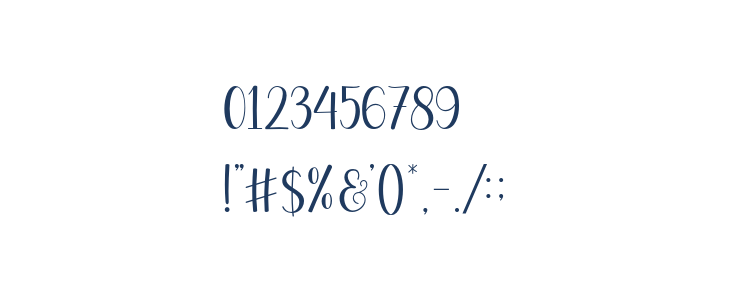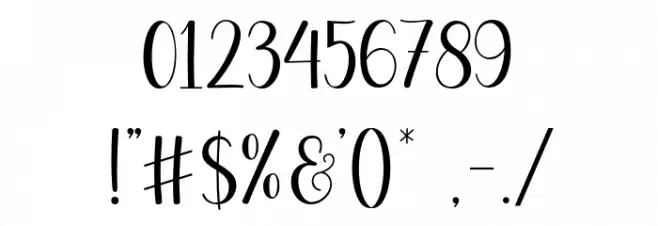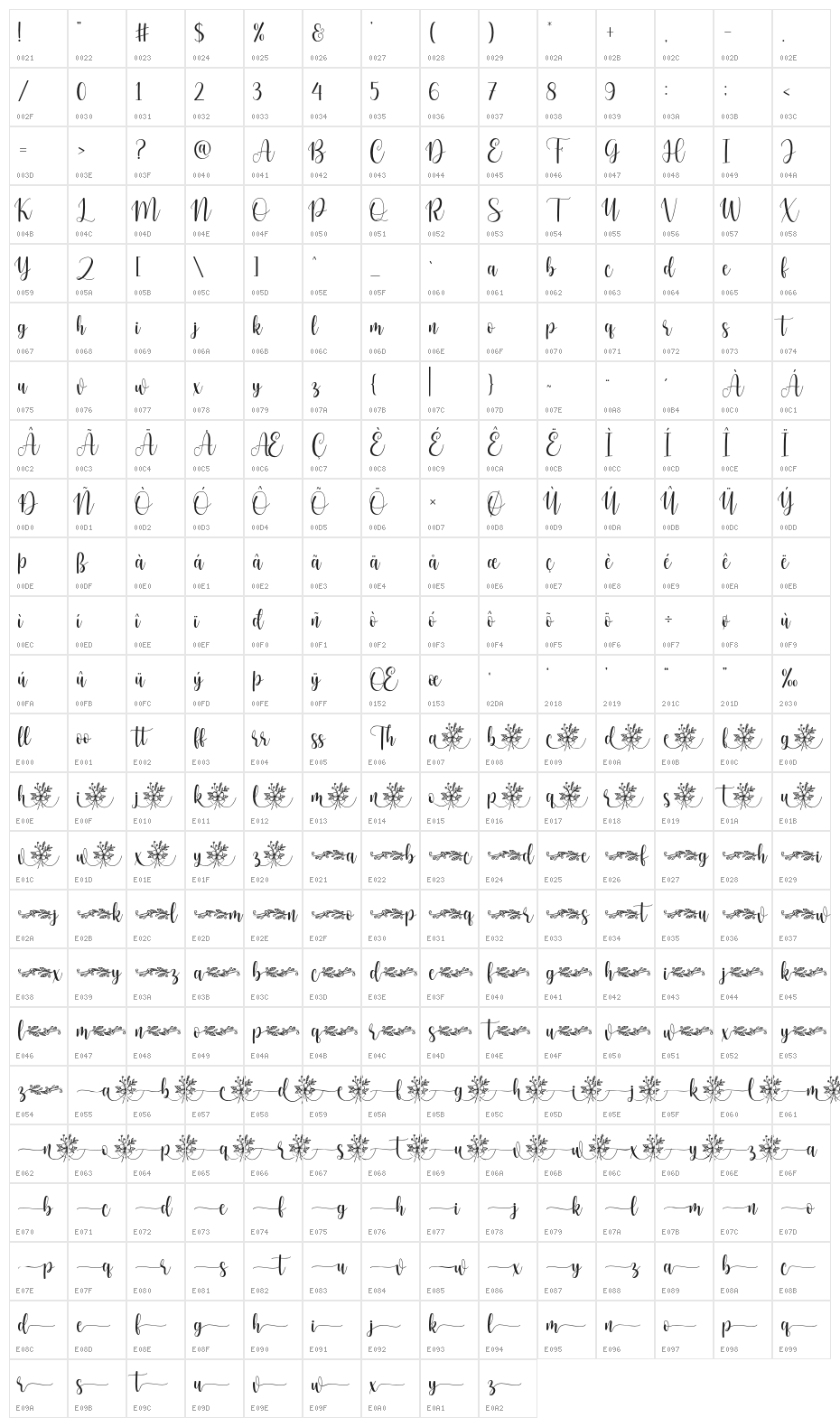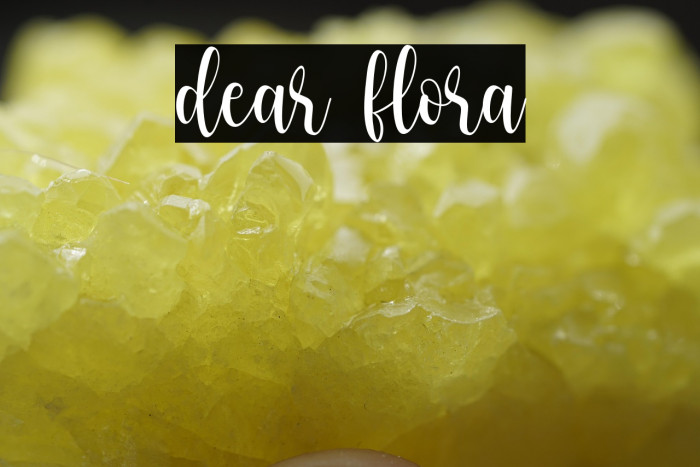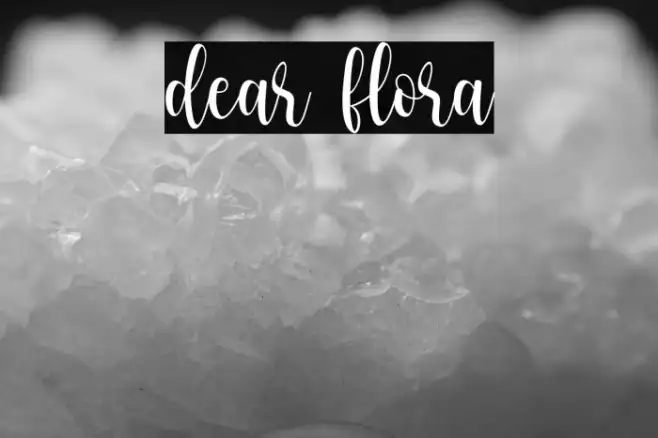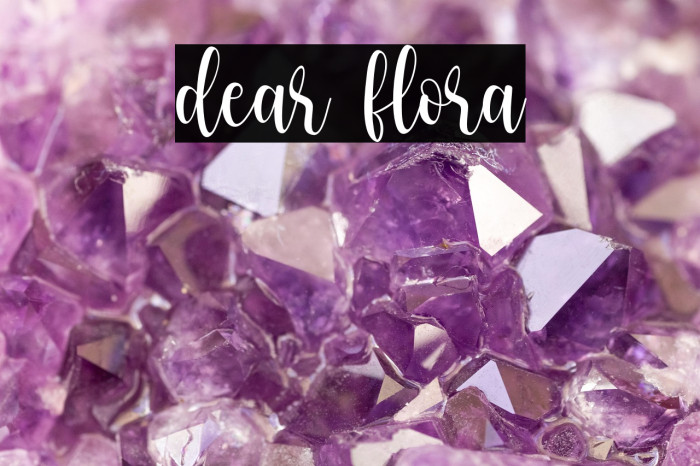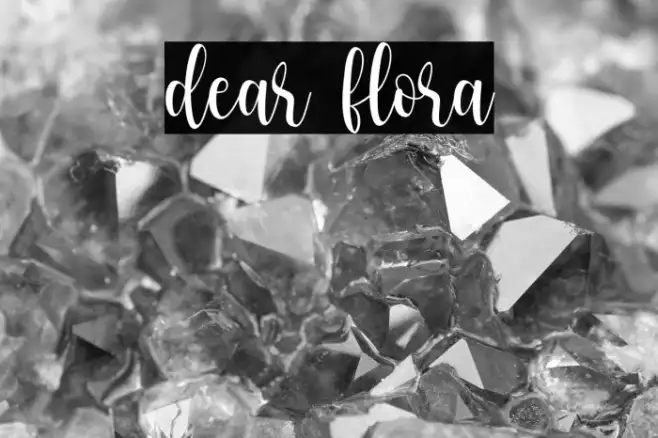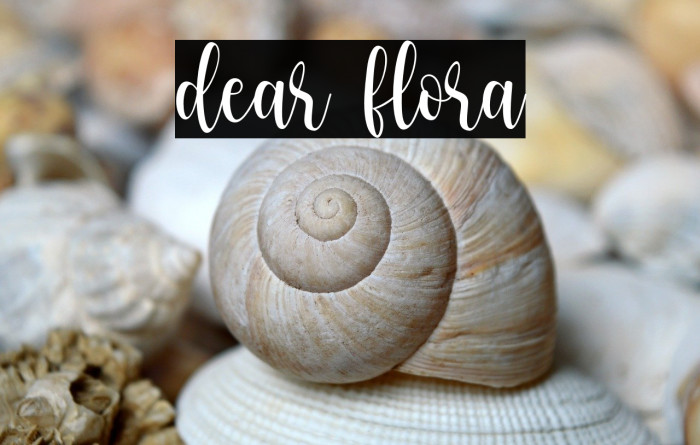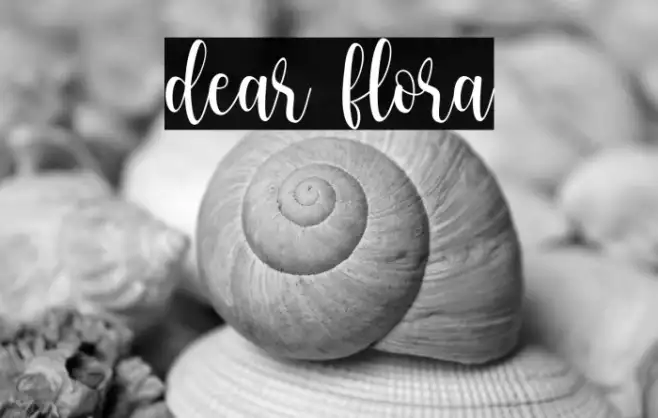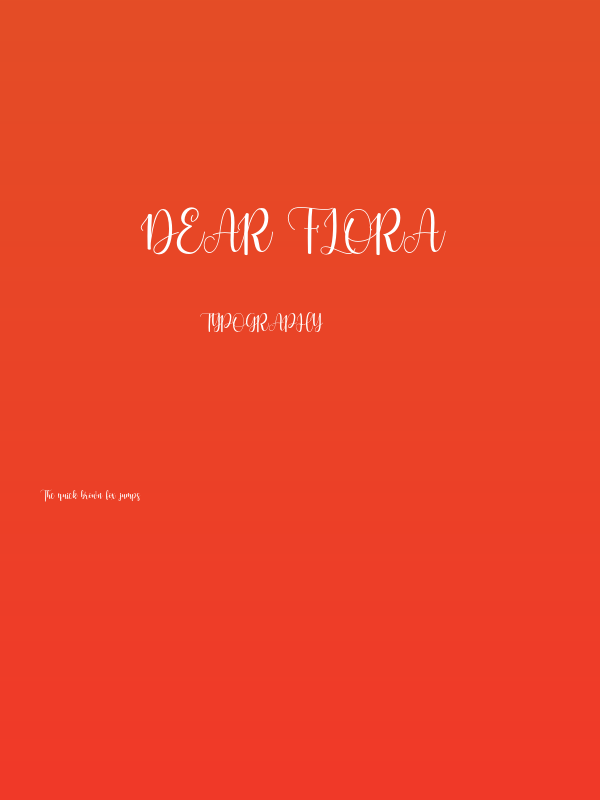
dear flora Font
dear flora Description
This font exudes elegance and sophistication with its flowing, cursive style. The uppercase letters are characterized by sweeping curves and flourishes, giving them a decorative and ornate appearance. The lowercase letters maintain a consistent flow, with smooth connections between characters, enhancing readability while retaining a stylish flair. The numerals are distinct and clear, complementing the overall aesthetic. Special characters are thoughtfully designed to match the font's graceful theme. This font is perfect for projects that require a touch of elegance and refinement, such as wedding invitations, branding, or high-end product packaging.
| Proposed Projects | Ideal for wedding invitations, luxury branding, and elegant product packaging. |